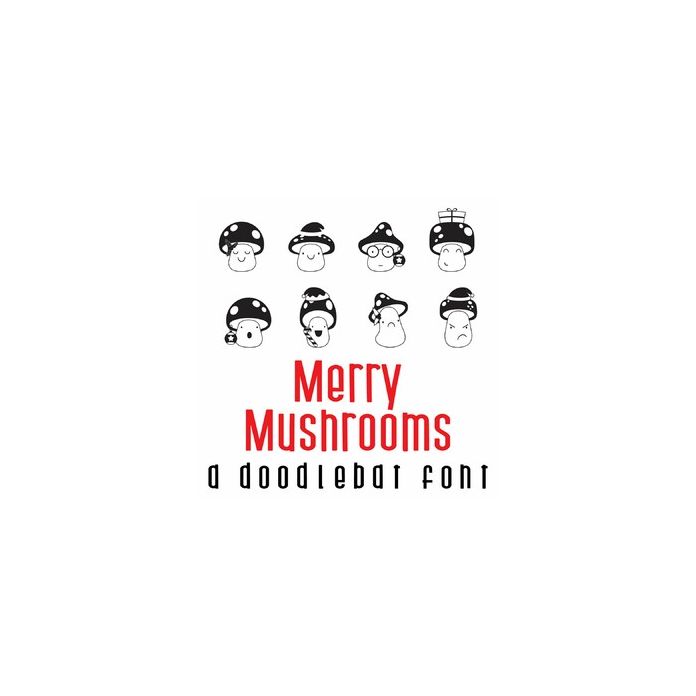
Merry Mushrooms Doodlebat Font
This fun doodlebat font features 26 merry mushrooms. Perfect for cards, crafts, gifts, decor, scrap book pages, planner stickers and more!